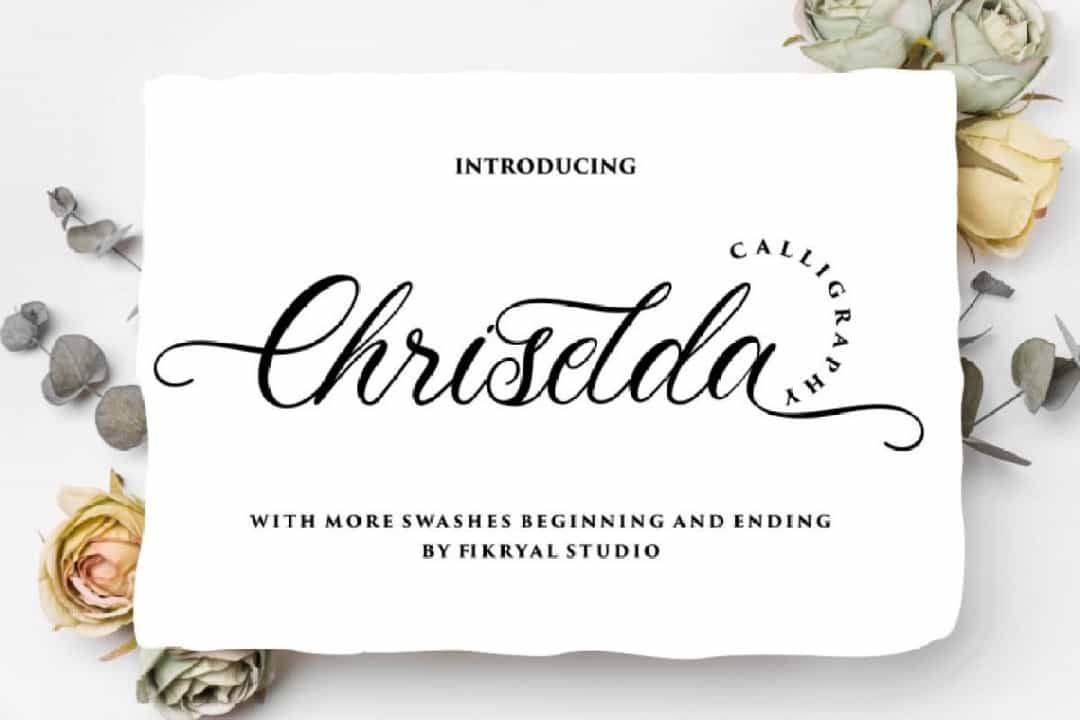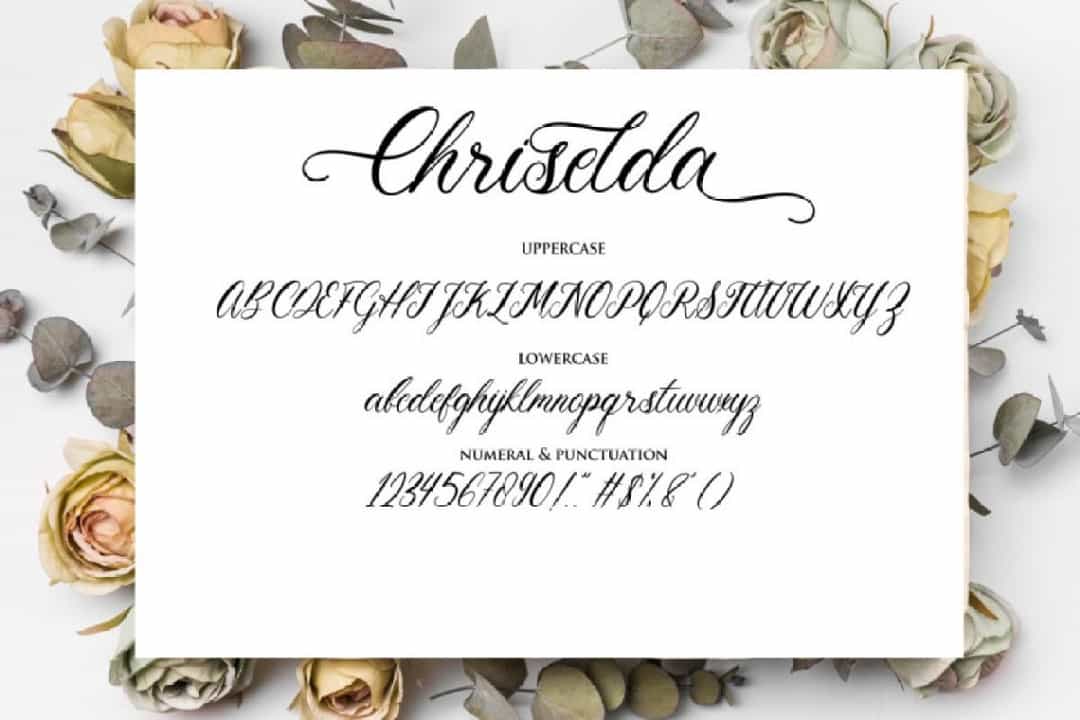
Chriselda is a beautiful script font that can be used for creating logos, invitation cards, stationery, weddings, adverts, social media, product packaging, photography watermarks, events or any other project that you may have in mind.